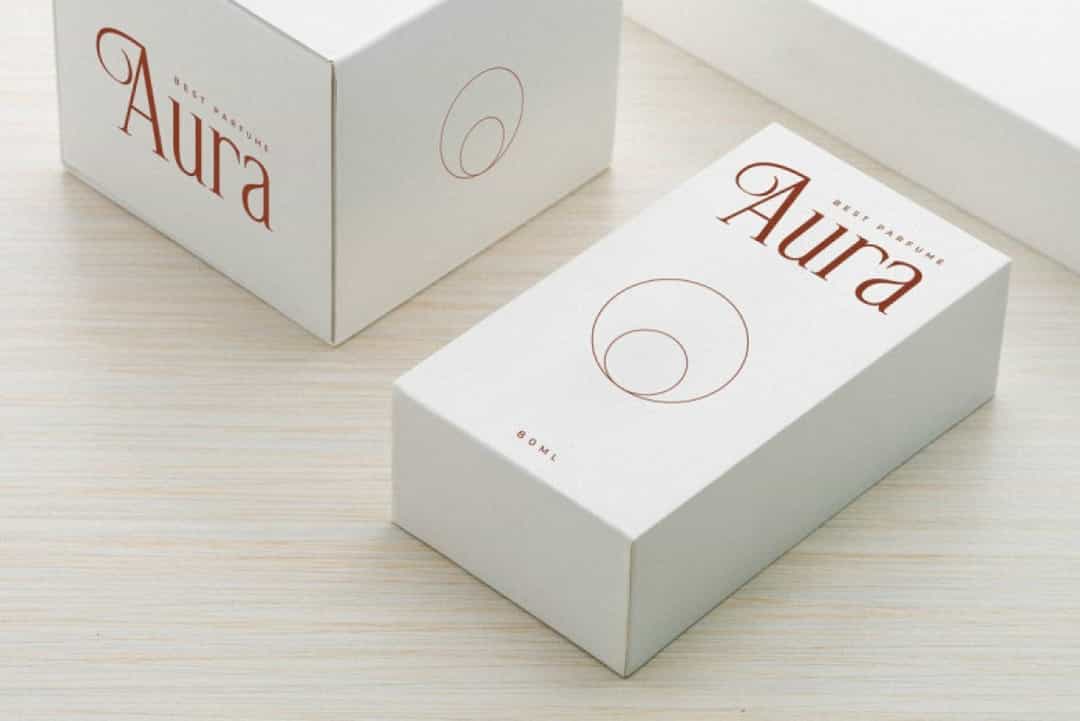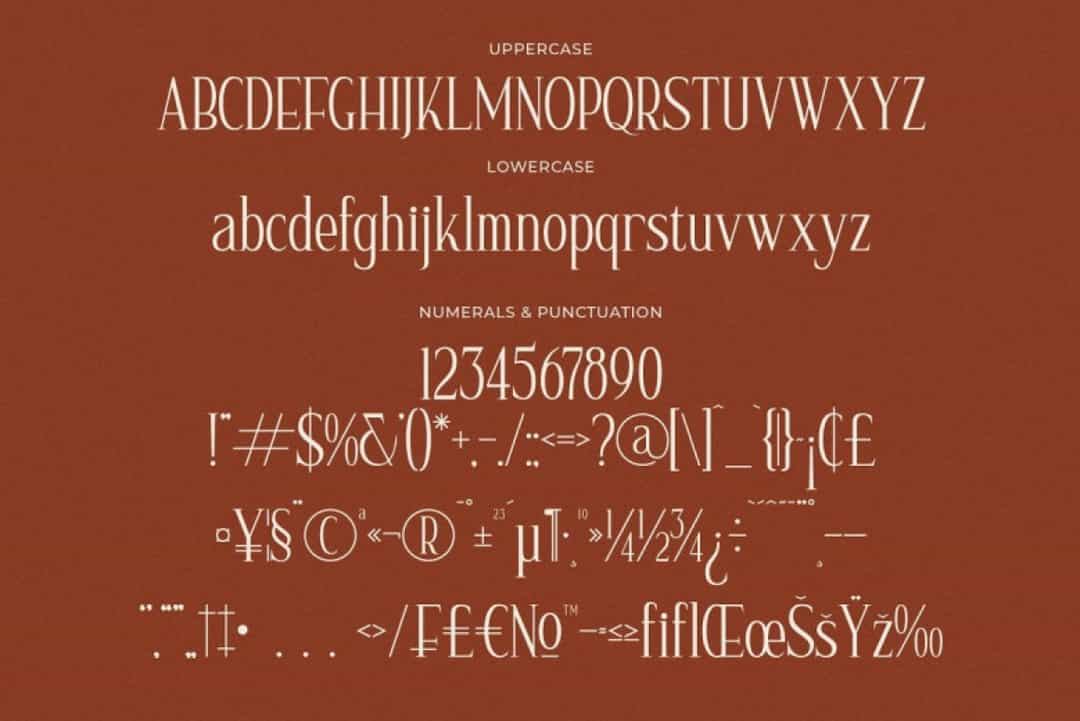
Nerhole by Letterena is an attractive contemporary serif font designed specifically to add style and pizazz to designs for logos, branding and homeware products. Additionally, packaging includes mugs posters quotes bags shopping T-shirts book covers name cards.